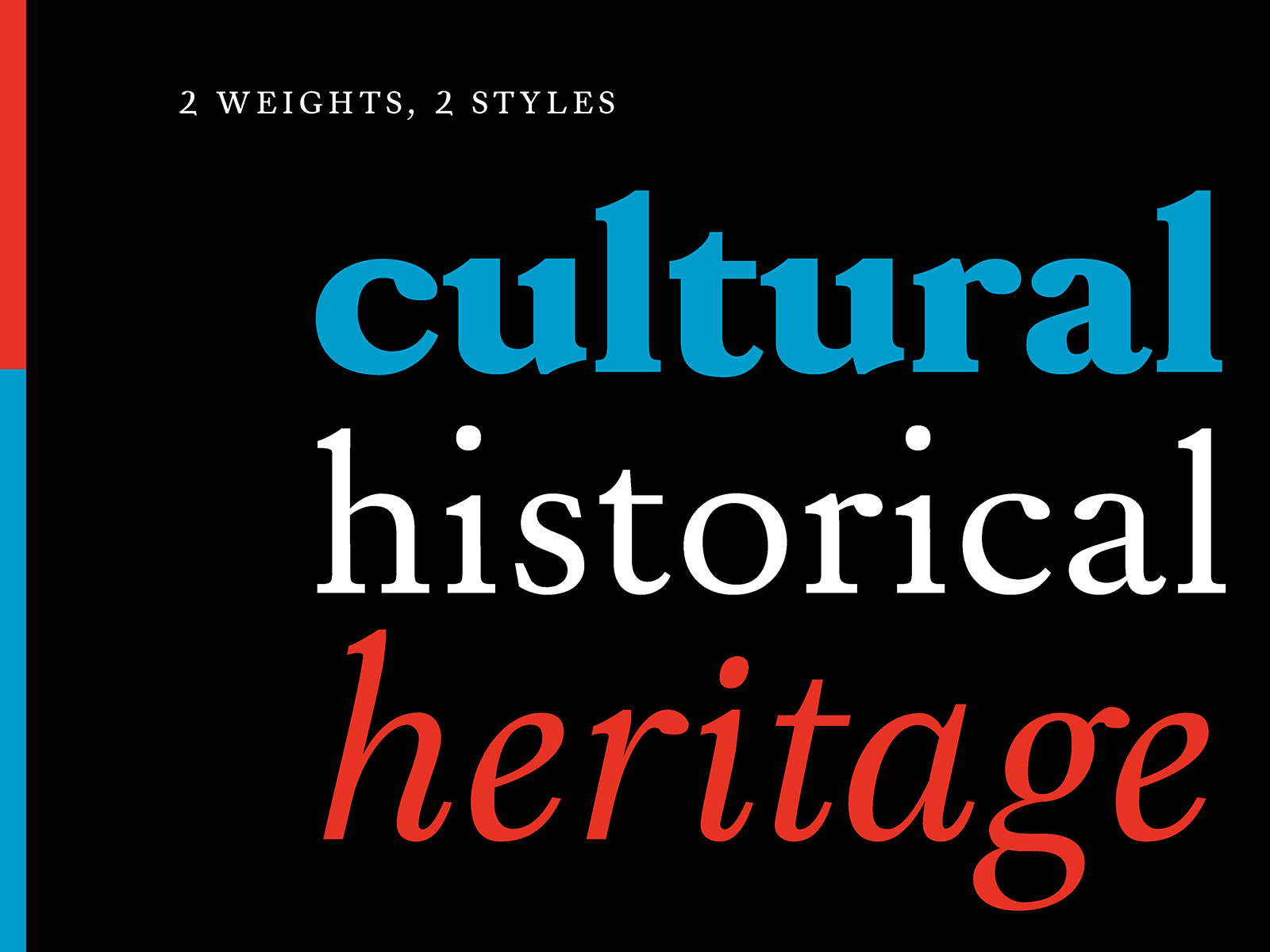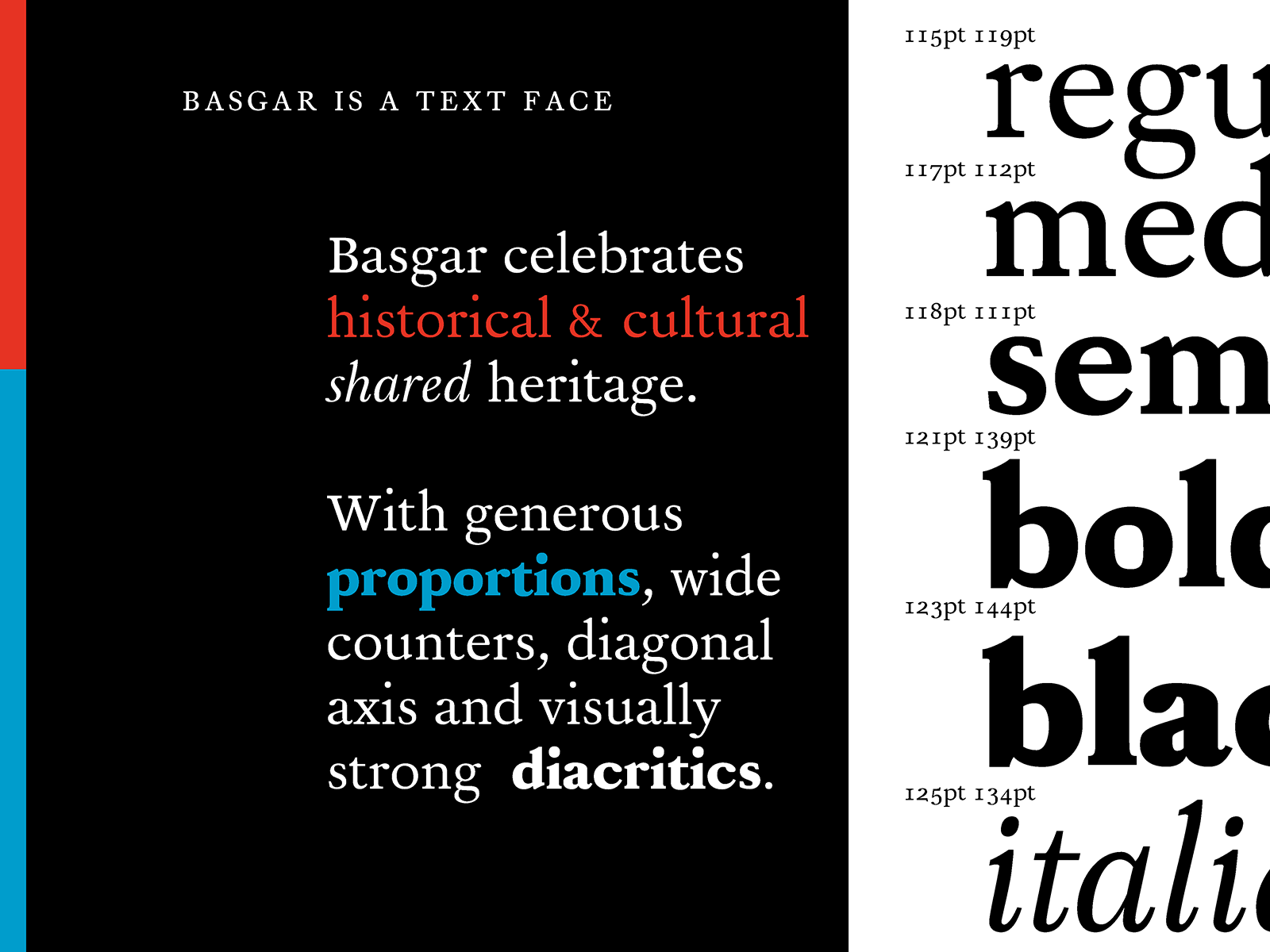
Basgar
Basgar started with exploring the connections between the sister cities Bristol and Bordeaux, which I am both familiar with. Town twinning – the modern concept born out of WWII to maintain and promote international peaceful relationships – materialises through trading and socio-cultural exchanges. My investigations led me to devise the idea of a typeface that would celebrate the common history and culture the two cities share.
The creation of the typeface is grounded in research about Garamond and Baskerville, from a historical angle to the more technical and structural specificities of the two character sets. After identifying the similarities and differences, I went on to design a kind of hybrid text face.
Basgar is therefore commemorative, referencing historical and cultural shared heritage; it takes on features from both Baskerville (UK) and Garamond (FR) with generous proportions, wide counters, diagonal axis and visually strong diacritics.